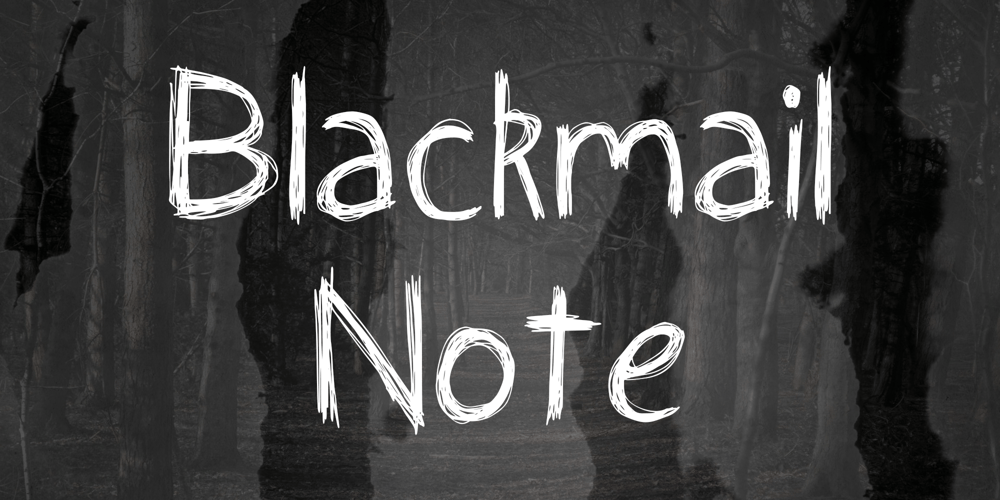
Blackmail Note
Blackmail Note font
Blackmail Note Font Family was designed by Kim Ariana and published by Kim Ariana Art Shop. Blackmail Note contains 1 styles and family package options. What’s your favorite scary movie…Get into the SPOOKY SEASON with this eerie and haunting font, perfect for Halloween invitations, creepy notes, and even more October fun! Blackmail note is a completely original font made to give the impression that Slenderman himself has written to you personally. Happy Haunting!